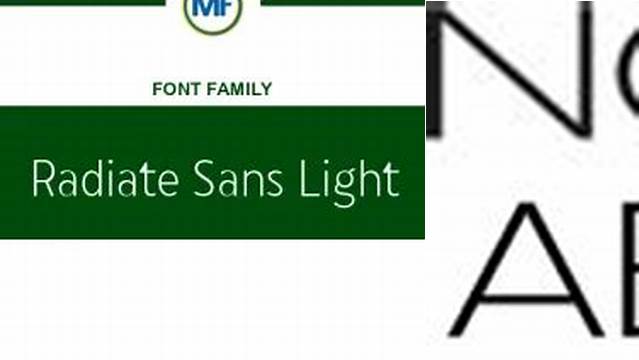
What is Radiate Sans Light Expanded Font?
First things first, what exactly is Radiate Sans Light Expanded? It's a contemporary sans-serif font that's known for its clean lines and elegant look. "Sans-serif" means it doesn't have those little decorative strokes (serifs) at the end of the letters, giving it a modern and minimalist vibe. "Light Expanded" tells us a couple of things: it's a lighter weight, making it ideal for headings and accents, and it's expanded, meaning the letters are wider than a standard font, which makes it visually striking, especially when used in larger sizes. This font family is perfect for a range of projects, from website headers and branding materials to posters and social media graphics. The Radiate Sans Light Expanded font is versatile and can be used in different projects. It's suitable for various design purposes, including headlines, logos, and body text. You can use it to create a modern and sophisticated look in your projects. The expanded width of the font makes it easily readable, even at smaller sizes, while the light weight keeps the design from feeling overwhelming. Its expanded form adds a unique touch that makes it stand out from other more common fonts, making it great for headlines and titles where you want to grab attention. It provides a balance of readability and style, making your content both visually appealing and easy to digest. This makes it an excellent choice for designers who want to convey a sense of style and sophistication. This font is designed to offer a clean and modern appearance to different projects. The light weight makes it perfect for use in headings and other design elements that require a delicate touch. It's versatile enough to be used in a wide variety of projects. The font's expanded width and modern feel make it a great choice for any project that requires a contemporary look. With its clean lines and expanded design, it provides a visual experience that keeps up with modern design trends. When you choose this font, you're not just picking a typeface; you're also investing in a design element that allows your message to resonate with your audience. Its versatility makes it perfect for designers wanting a balance of style and readability. The font's characteristics ensure that your designs are both aesthetically pleasing and functional, making it a valuable tool in your design arsenal. So, whether you're designing a website, creating marketing materials, or crafting social media content, Radiate Sans Light Expanded can elevate your design.
Tips for Using Radiate Sans Light Expanded in Your Designs
Now that you have the font, let's talk about how to use it effectively. Here are some tips to make your designs pop with Radiate Sans Light Expanded:
- Pairing fonts: Since it is a light and expanded font, pair it with a contrasting font to create visual interest. Consider a heavier sans-serif font for headings or a classic serif font for body text. You want something that complements it without overpowering it. Use Google Fonts to find some great pairing options. It is helpful to have a range of font combinations that are ready to be used for different projects.
- Size matters: Because of its expanded nature, Radiate Sans Light Expanded can look great in larger sizes, like headings. However, it can also work well in smaller sizes for subheadings or accents, just make sure it's still legible. Experiment to find the right balance. Adjust the font size to different sizes, to find out what works best for your designs. Avoid using very small sizes if you are using it for long blocks of text.
- Color considerations: This font works well with a wide range of colors. For a modern look, use it with bright or pastel colors. For a more sophisticated feel, try pairing it with neutral colors like black, white, and gray. Color choices can dramatically impact the overall feel of your design.
- Spacing and kerning: Pay attention to the spacing between letters (kerning) and lines (leading). Adjusting these can make the font more readable and visually appealing. In your design software, there should be options for kerning and leading. Adjust these settings according to the overall design and readability of the font. Adjusting the spacing can significantly enhance the visual appeal of your design.